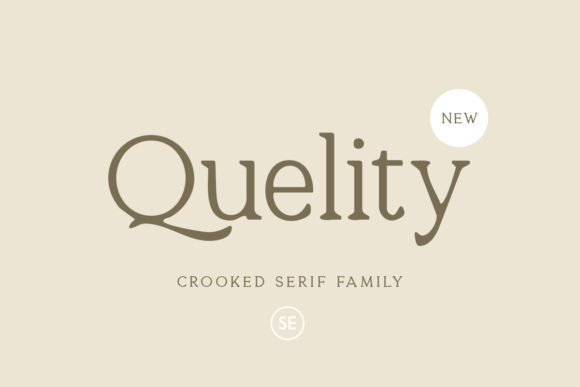
Quelity Font
Quelity is a simple and clean serif font. It is suitable for creating any branding, product packaging, invitation, quote, t-shirt, label, poster, logo that you wish to develop.